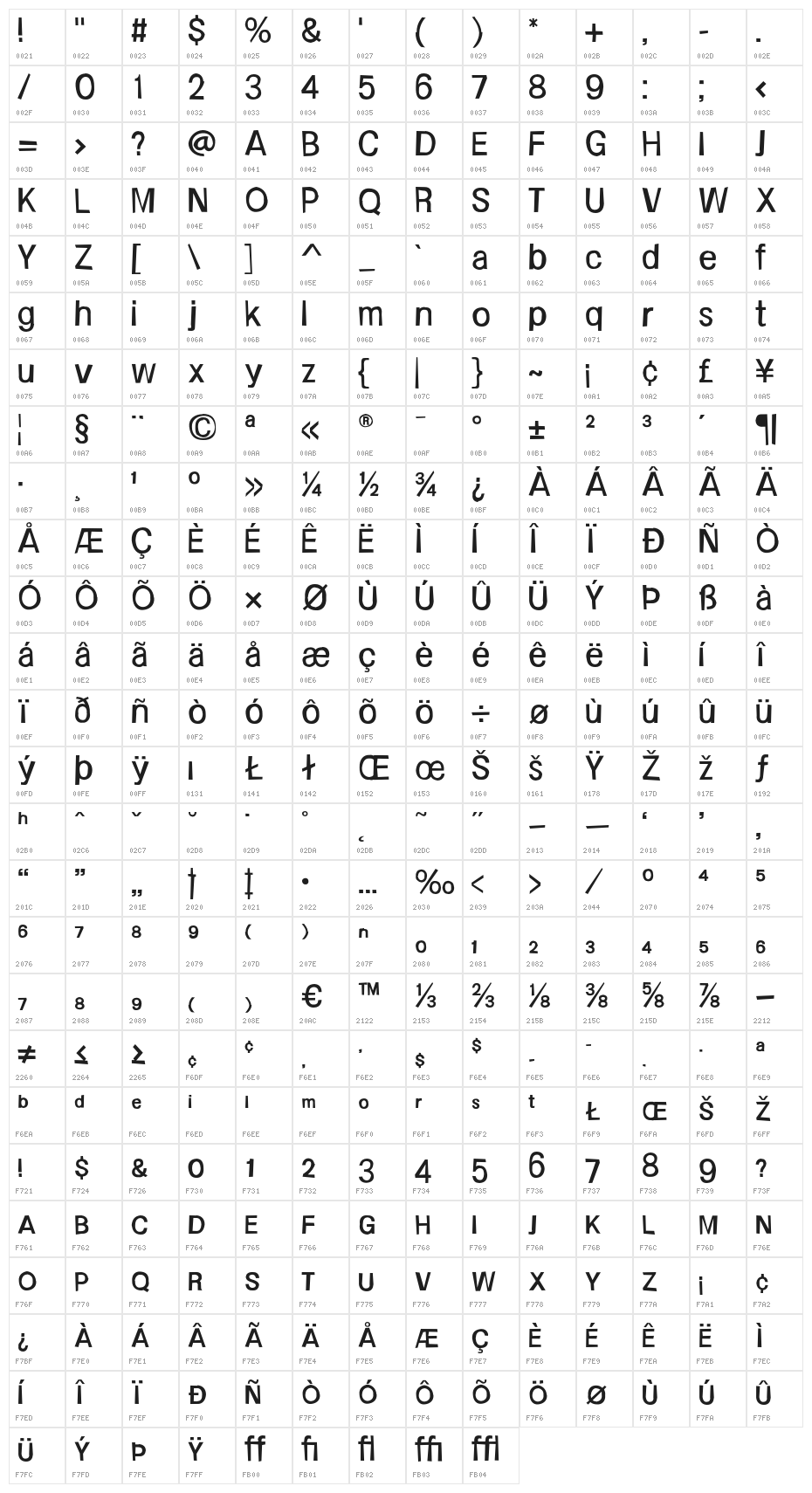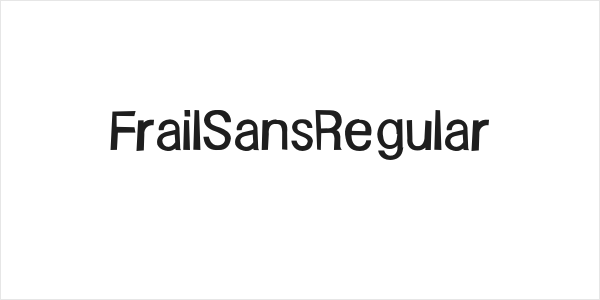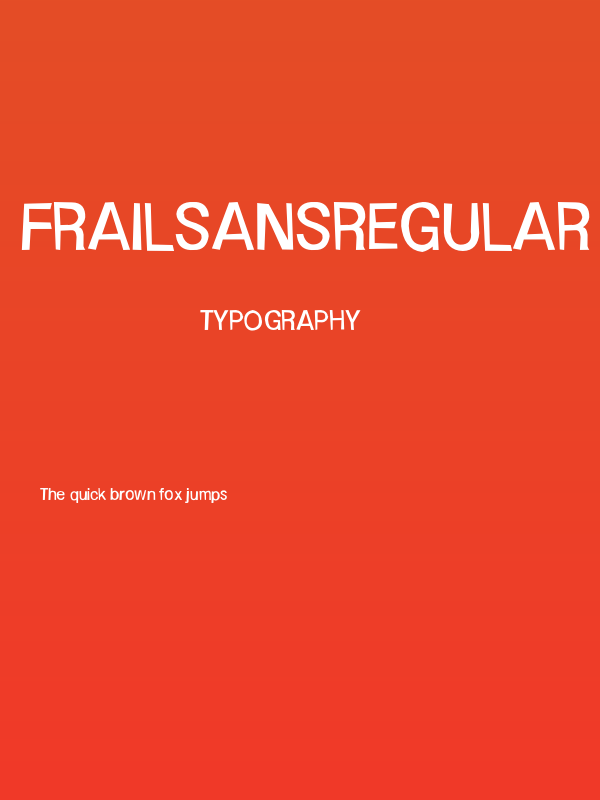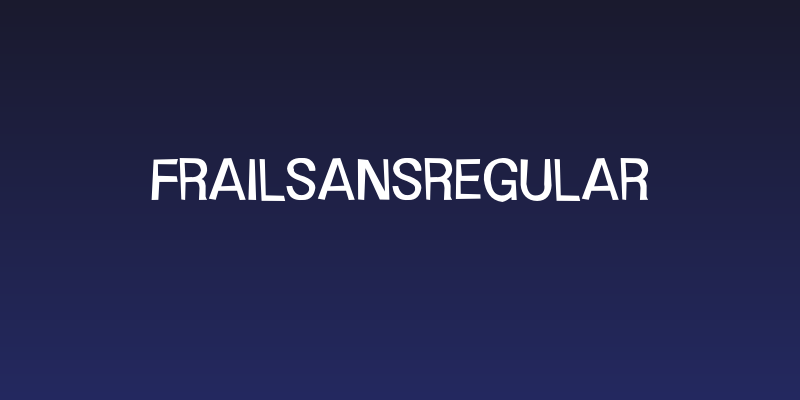
FrailSansRegular Font
| Категория | Sans Serif |
| Область применения | Headlines, Body text, Logos |
| Рекомендуемые проекты | Ideal for branding, advertising, web design, and editorial projects where a modern and clean look is desired. |